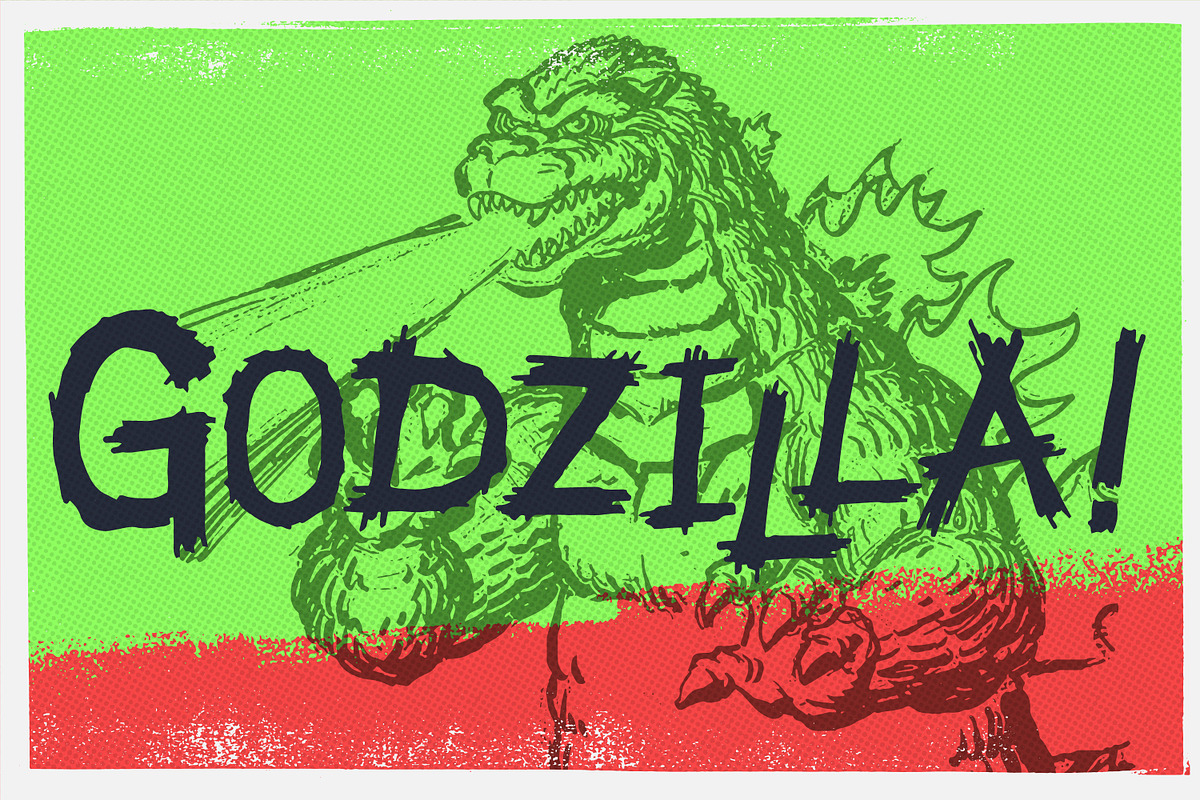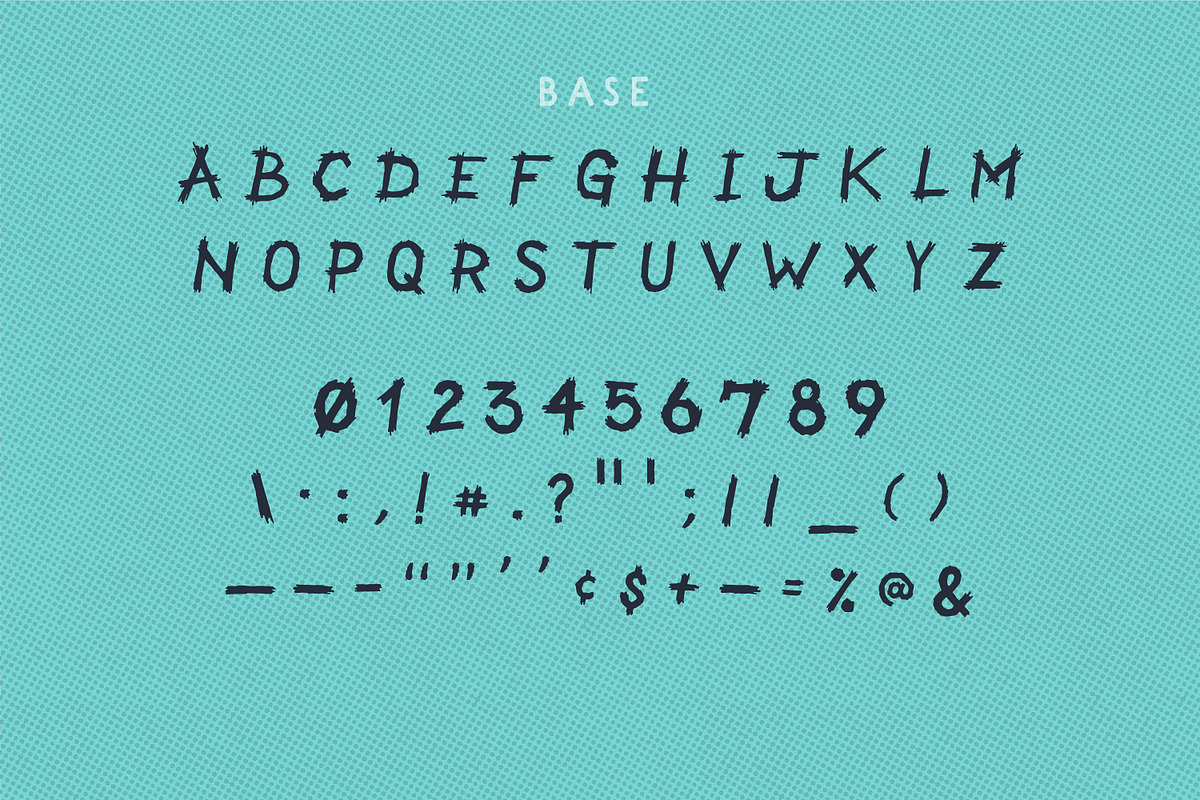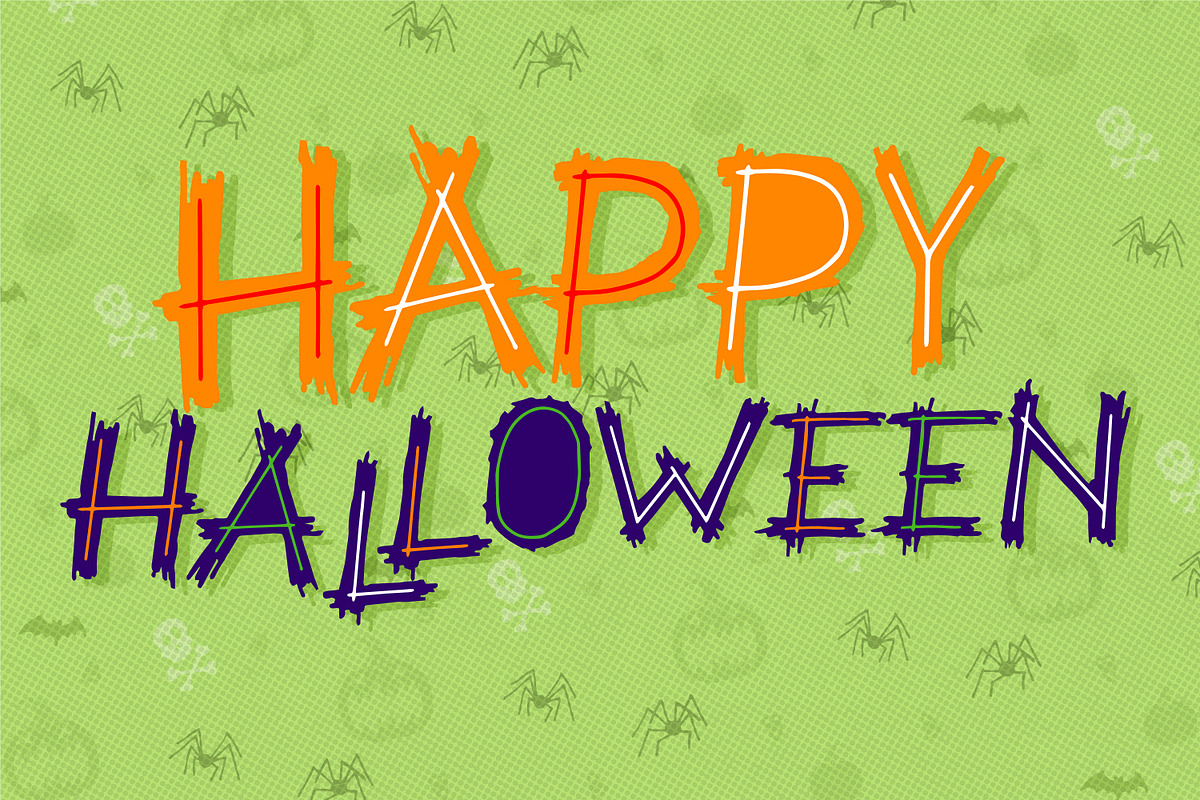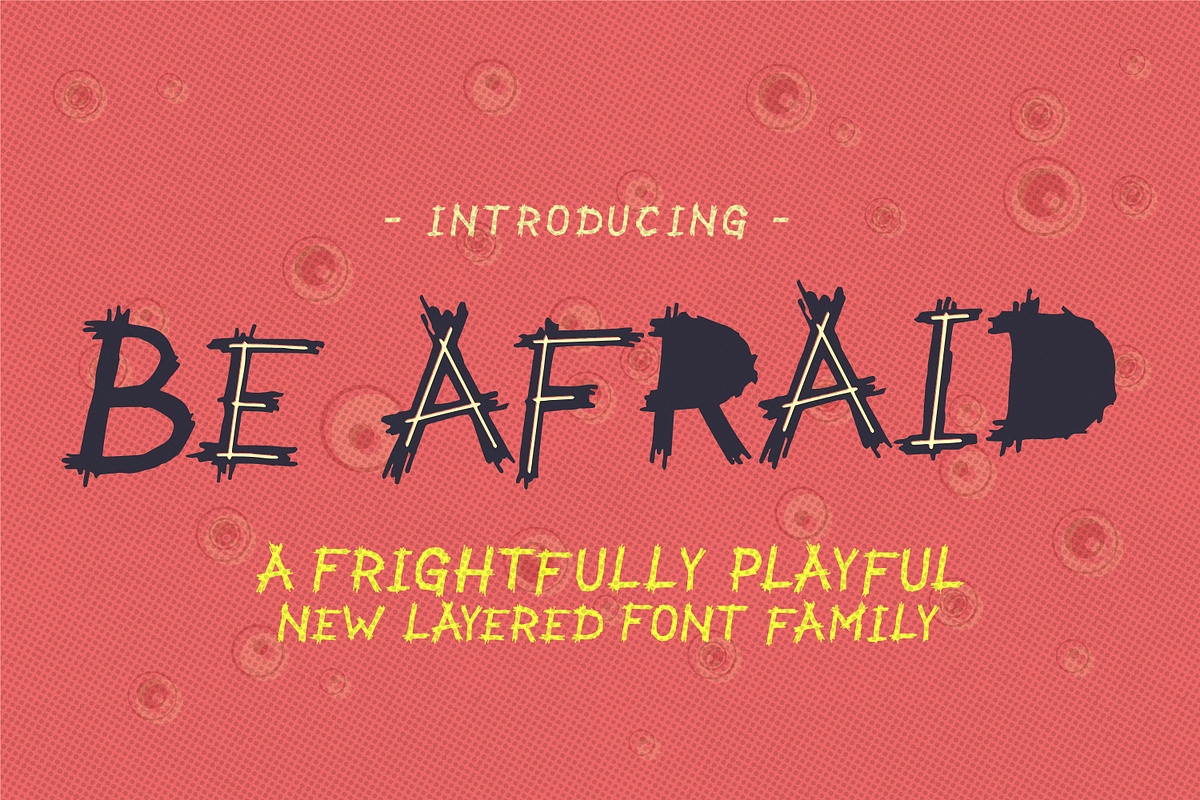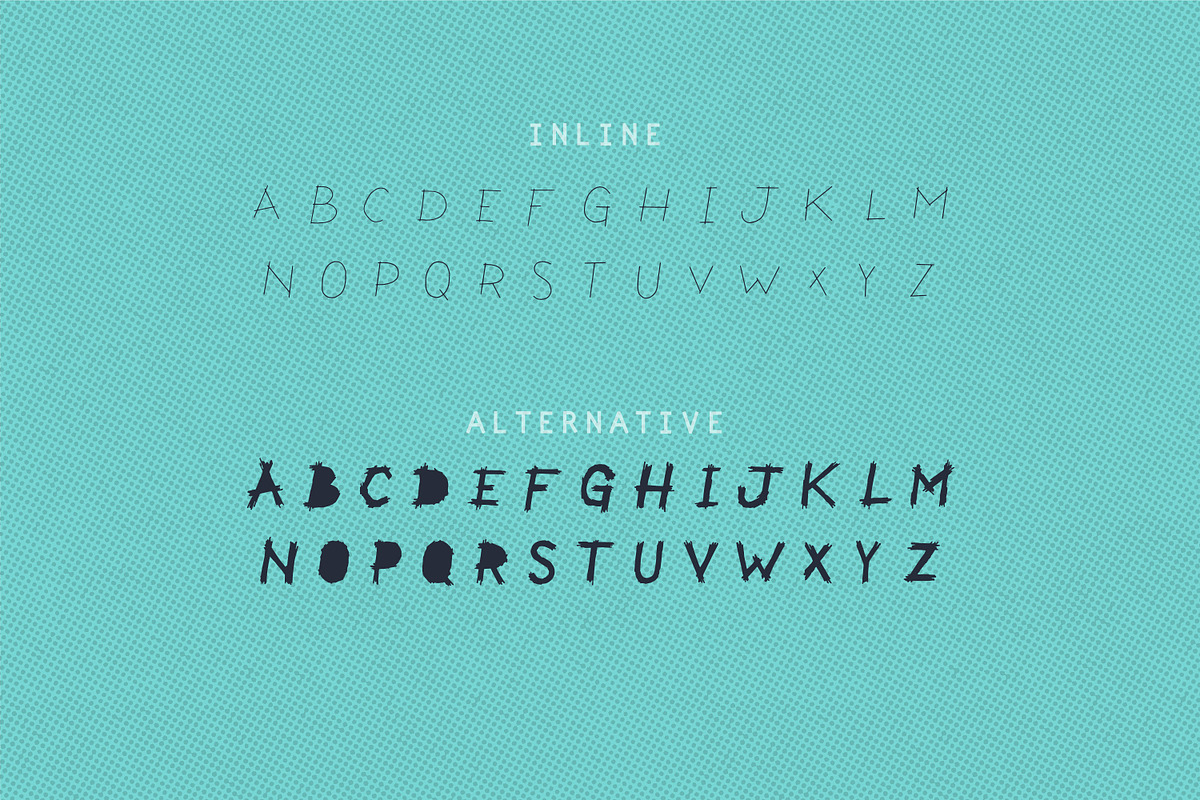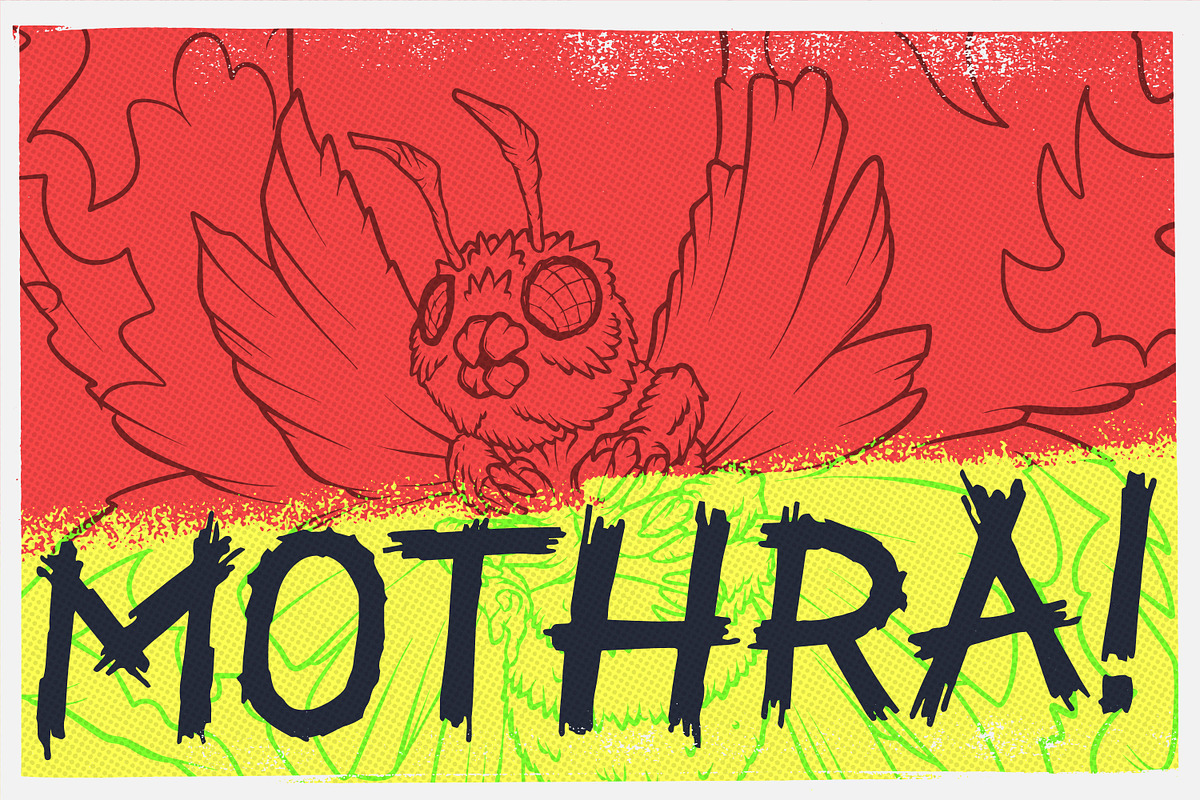
Be Afraid
Be afraid is a frightfully playful display font that pays homage to old horror movie posters. Use it in your next Horror/Monstor movie poster, or just bring some life to a Halloween advertisement.
The complete family pack includes 3 styles: Base, Inline, Alternative.